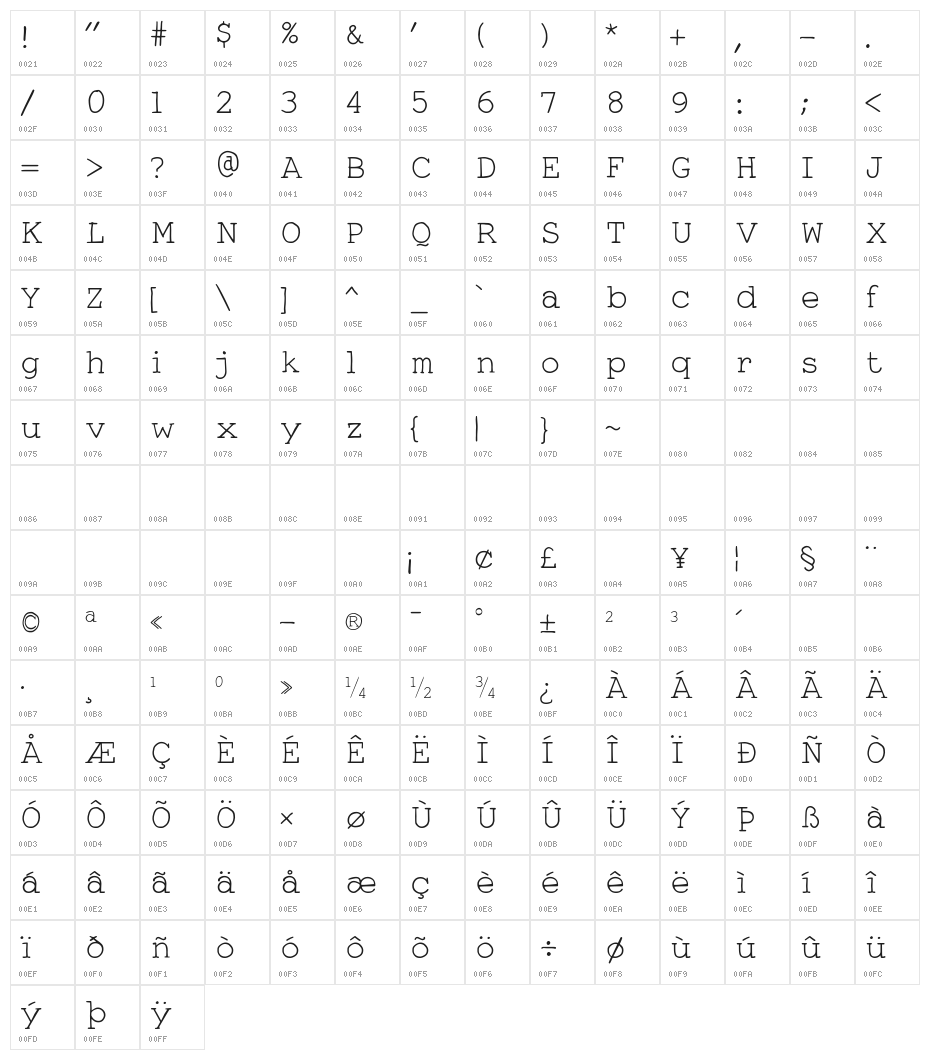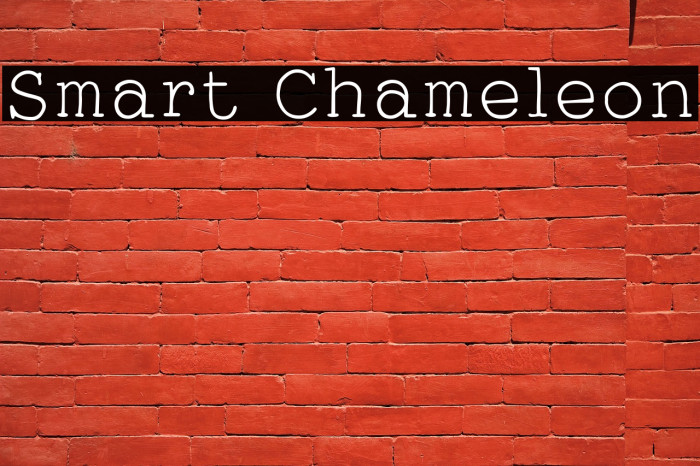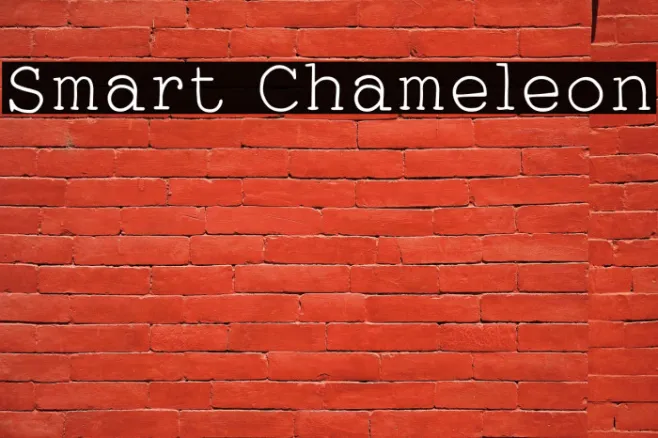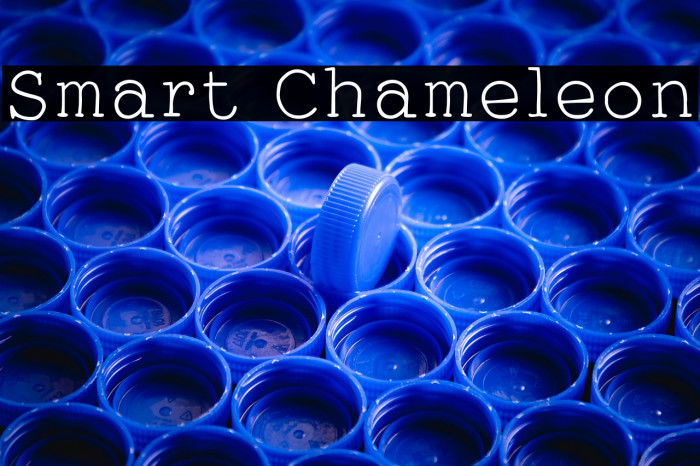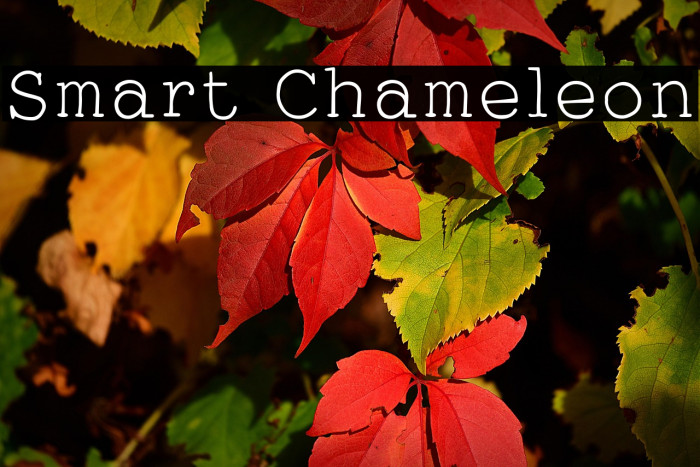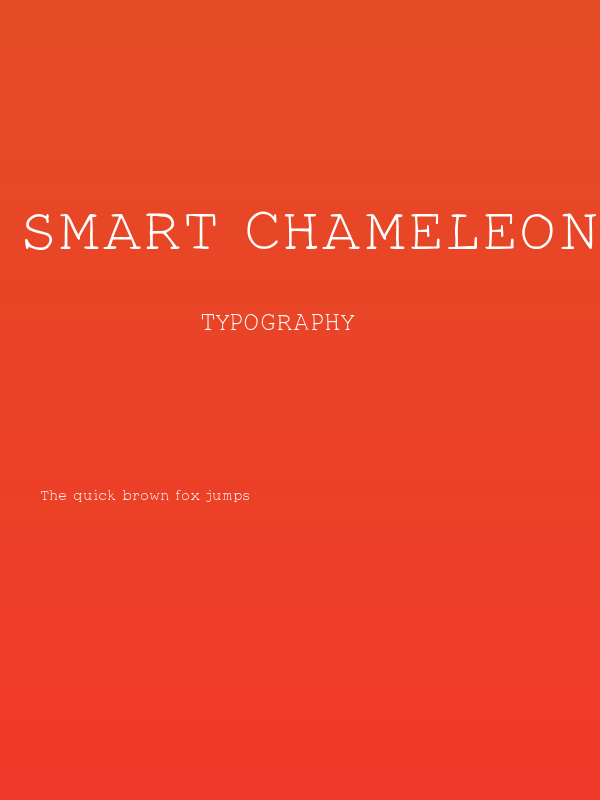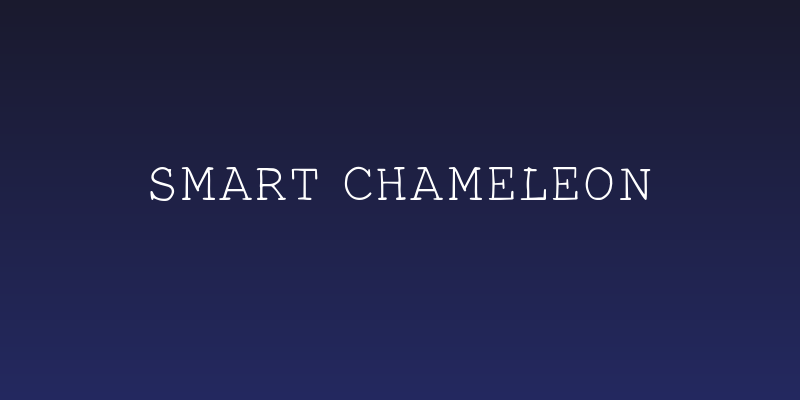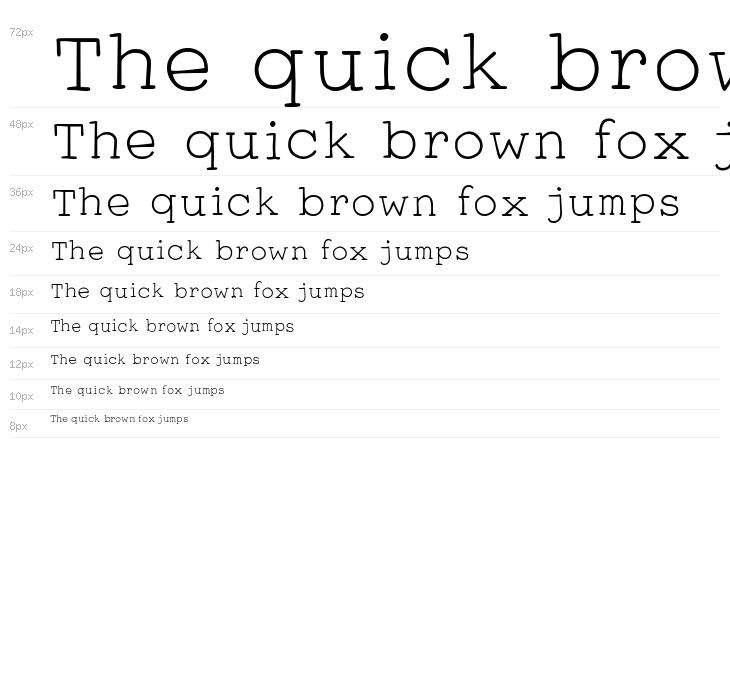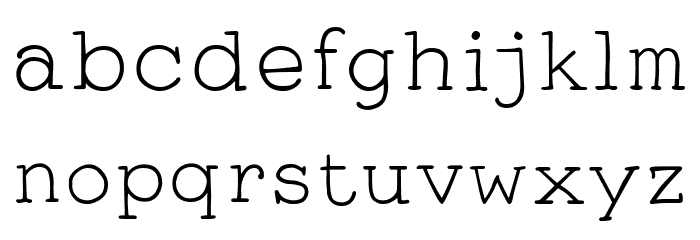
Smart Chameleon Font
Smart Chameleon Description
This font features a clean and modern design with a monospaced structure, giving it a typewriter-like appearance. Each character is evenly spaced, providing a uniform and orderly look. The strokes are consistent in thickness, contributing to a low contrast style that enhances readability. The uppercase letters are bold and prominent, while the lowercase letters maintain a balanced and harmonious flow. Numbers and special characters are clearly defined, making them suitable for technical and coding applications. The overall aesthetic is minimalistic yet functional, ideal for projects that require clarity and precision.
| Use Case | Coding, Technical documents, Minimalist design |
| Proposed Projects | Ideal for coding, technical documents, and minimalist design projects. |